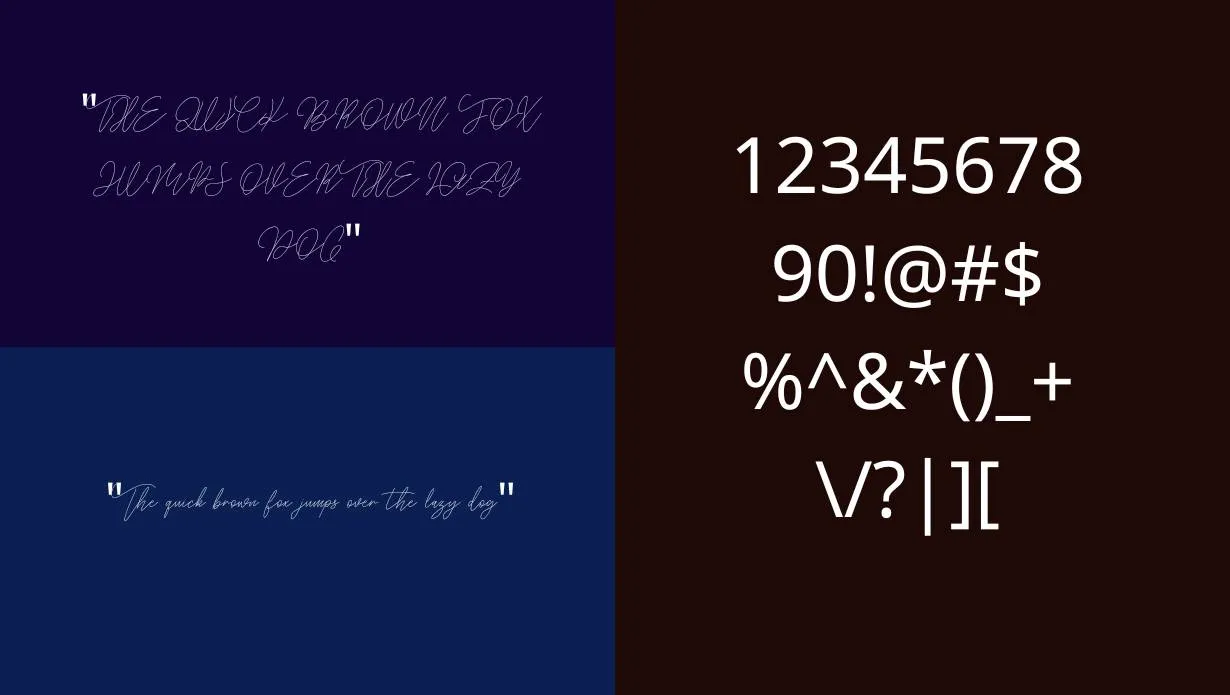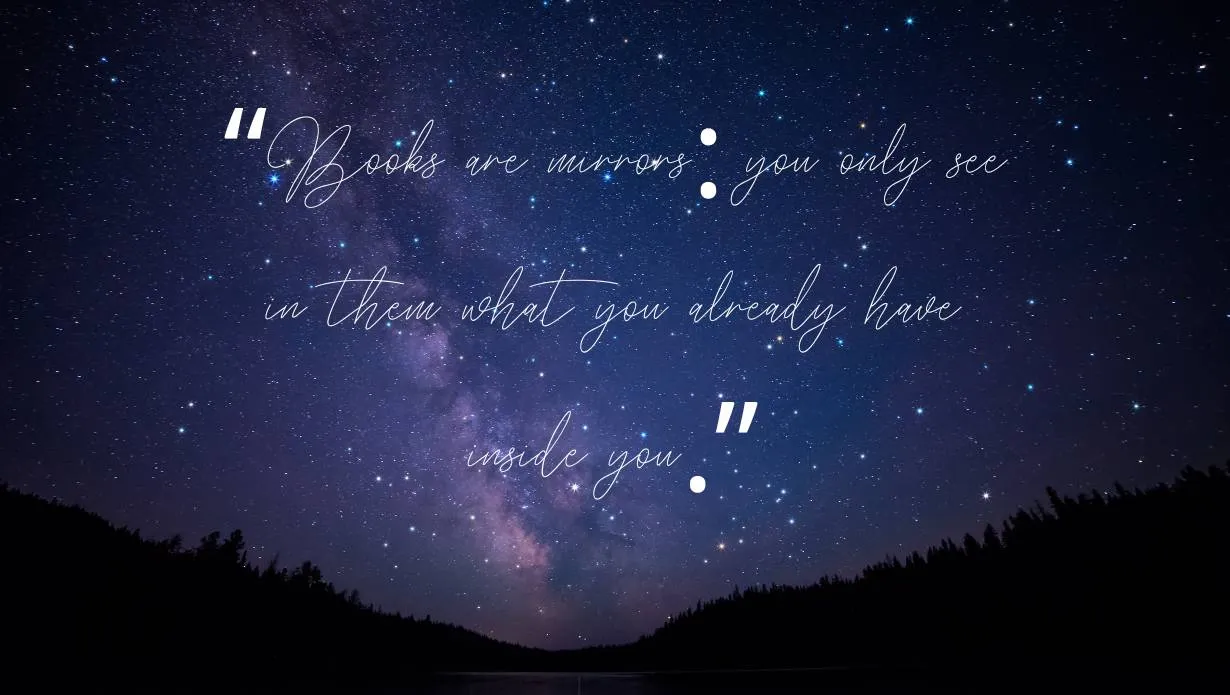
We are introducing Balleys Font, a script font created by Maulana Creatives, which possesses an elegant, stylish, and impressive look that is perfect for various projects.
| Name | Balleys Font |
| Designer | Maulana Creatives |